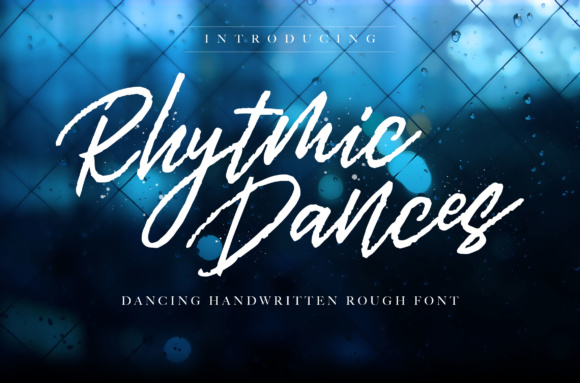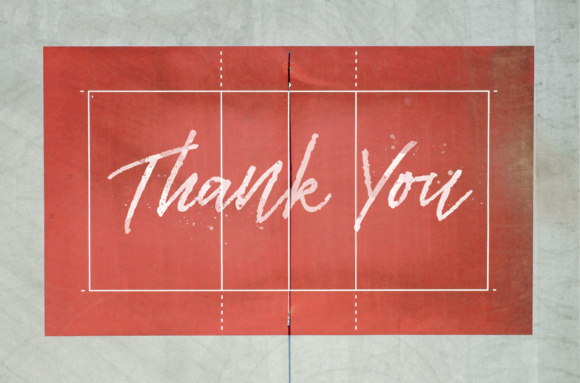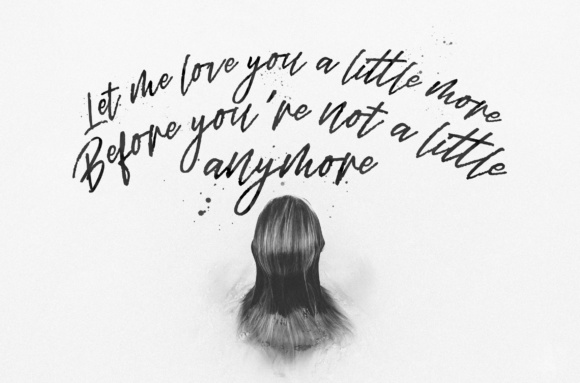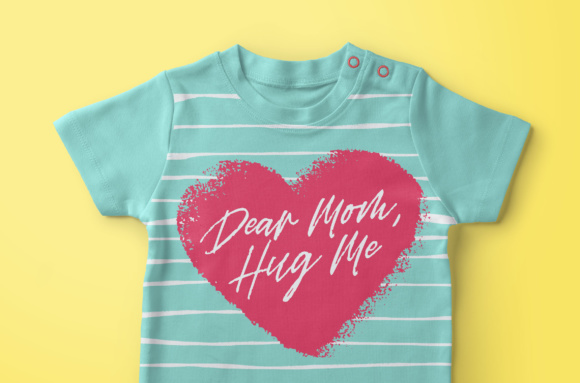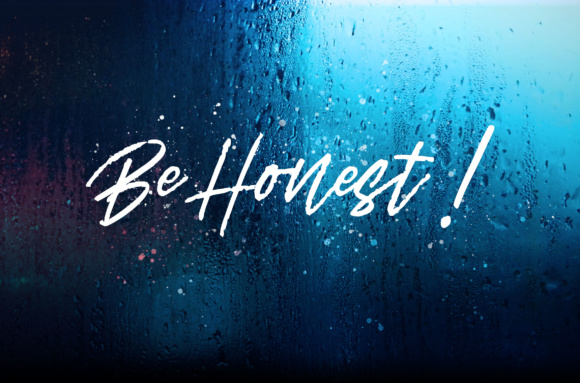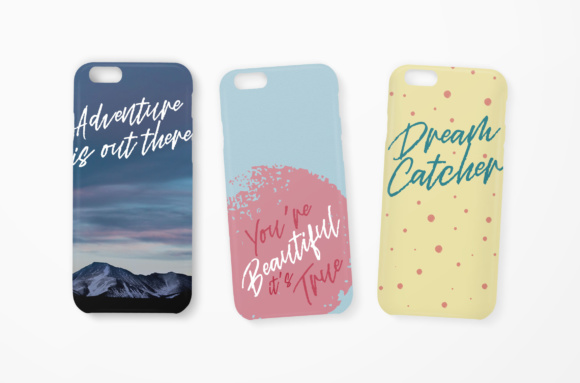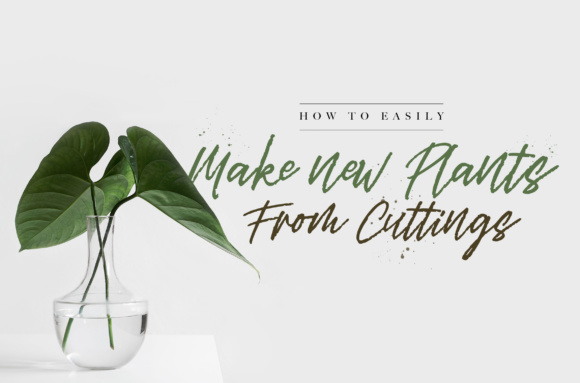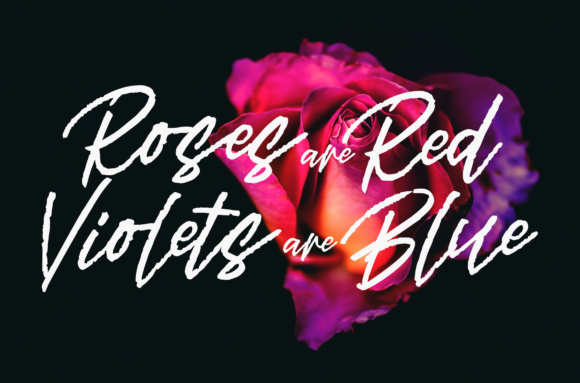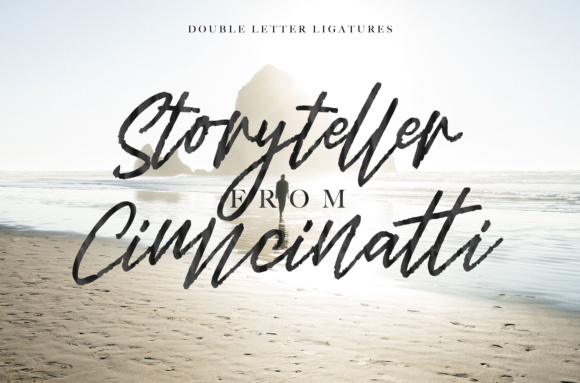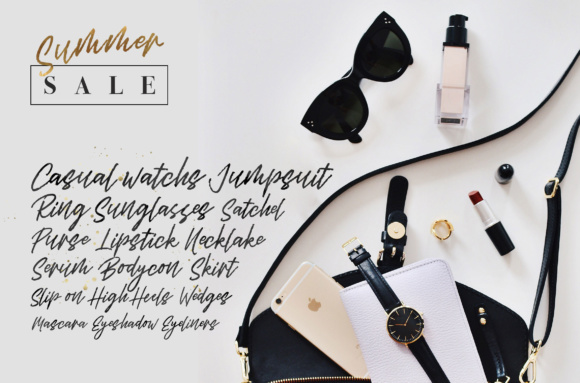
Rhytmic Dances Font
About Rhytmic Dances Font
Rhytmic Dances is a fun, textured signature font that has a natural appeal. This font is sophisticated as a script but has tons of rough edges so you can create designs that have a handwritten flair.